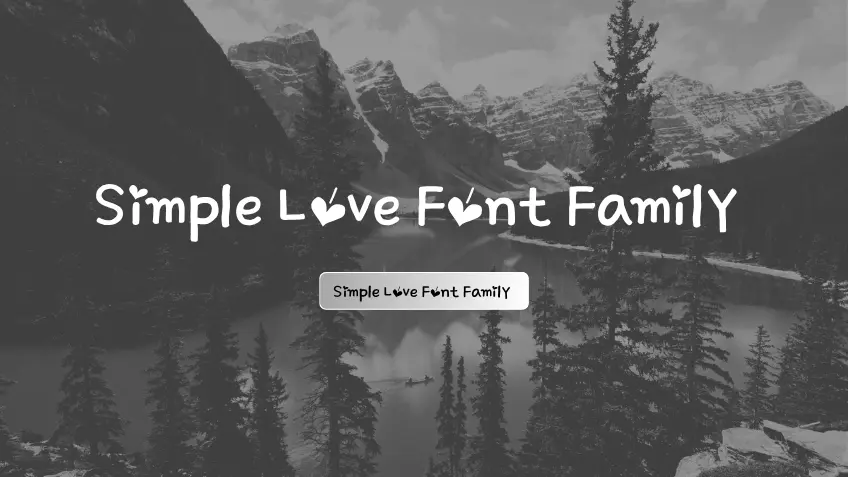
Simple Love Regular
Simple Love Regular Font
The font Simple Love Regular, designed by cutieFont, falls under the Display, Handwritten, Script category & Simple Love font family. Its smooth, flowing letterforms make it a versatile choice for projects that require both elegance and readability. Simple Love is particularly well-suited for Branding, Valentine, Social Media, Social media graphics, Crafting, Logos, Greeting Cards, Event Stationery, School, Borders and Digital Art. With its balance of simplicity and decorative appeal, this font brings a polished touch to both personal and professional designs.